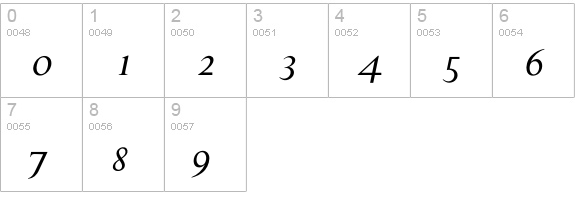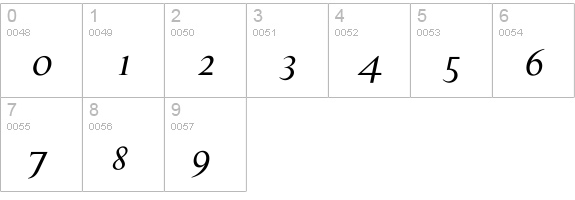
SaigonItalic Font Details
Introducing SaigonItalic, a stunning font that effortlessly combines elegance and versatility. This typeface is the perfect choice for those seeking a touch of sophistication in their designs. With its sleek and fluid curves, SaigonItalic adds a unique flair to any project, whether it be for branding, editorial, or web design. What sets SaigonItalic apart is not just its captivating aesthetics, but also its versatility. This font is equally at home in both formal and casual settings, making it a truly adaptable choice for any creative endeavor. Its refined letterforms are carefully crafted, resulting in clear legibility and a seamless reading experience. SaigonItalic is not only visually impressive, but it also offers a delightful user experience. The characters flow effortlessly from one to another, creating a harmonious rhythm that is pleasant to the eye. Each stroke is meticulously designed to ensure optimal balance and spacing, resulting in a clean and professional look. One of the best parts about SaigonItalic is that it is free to download at FontsMarket.com. This means that you can easily access this stunning font and elevate your designs without breaking the bank. Whether you are a professional designer or a hobbyist, SaigonItalic offers you the opportunity to create visually captivating and impactful projects. So why wait? Download SaigonItalic from FontsMarket.com today and unlock the potential of this exquisite font. With its timeless elegance and versatility, SaigonItalic is sure to become an essential tool in your creative arsenal. Elevate your designs and captivate your audience with this free font that is both visually striking and effortlessly beautiful.